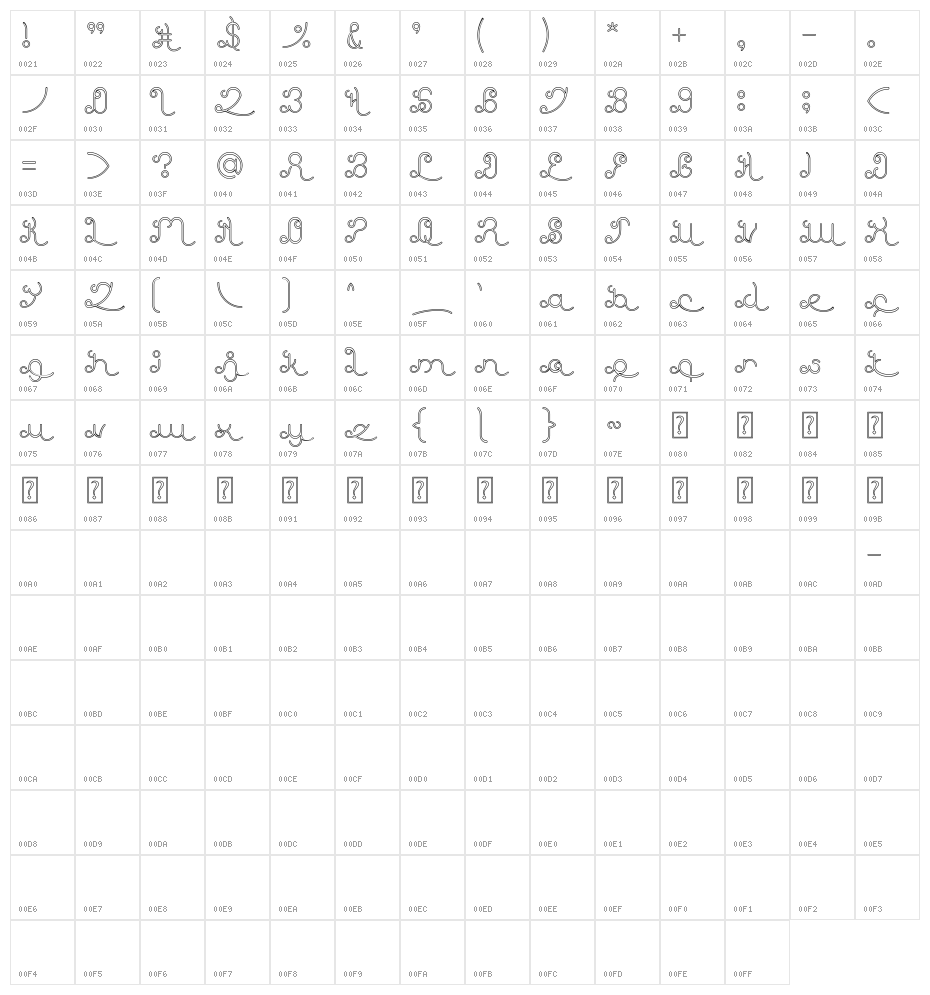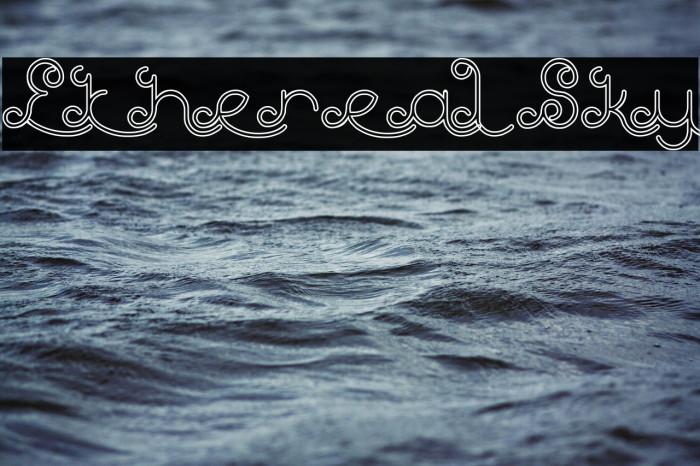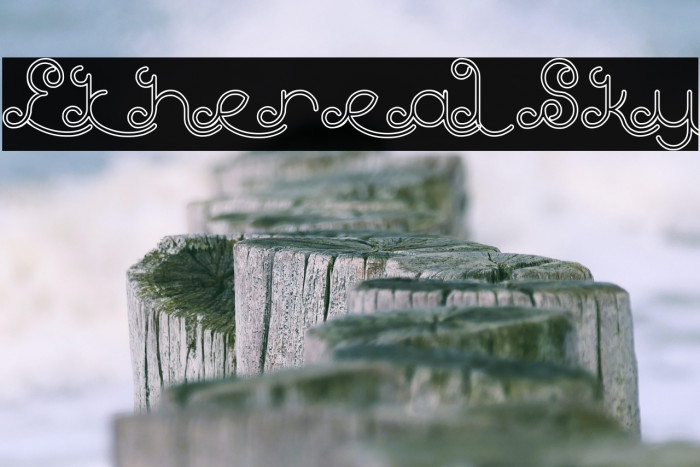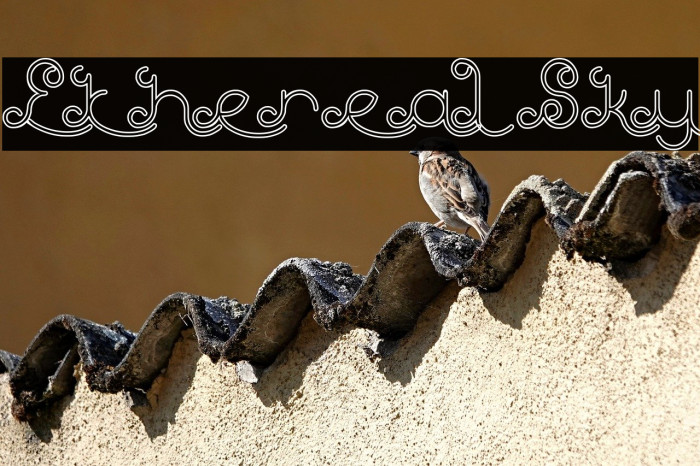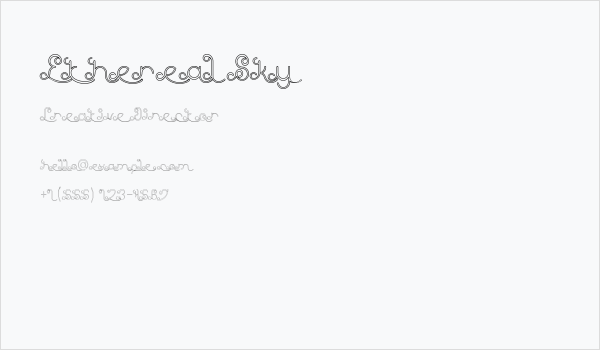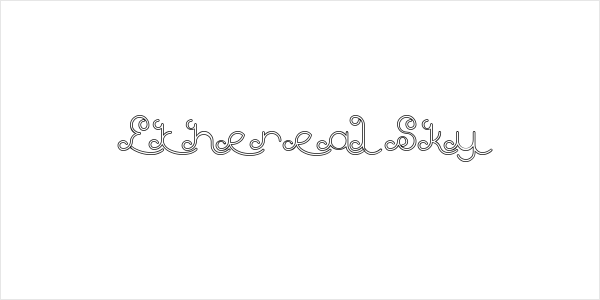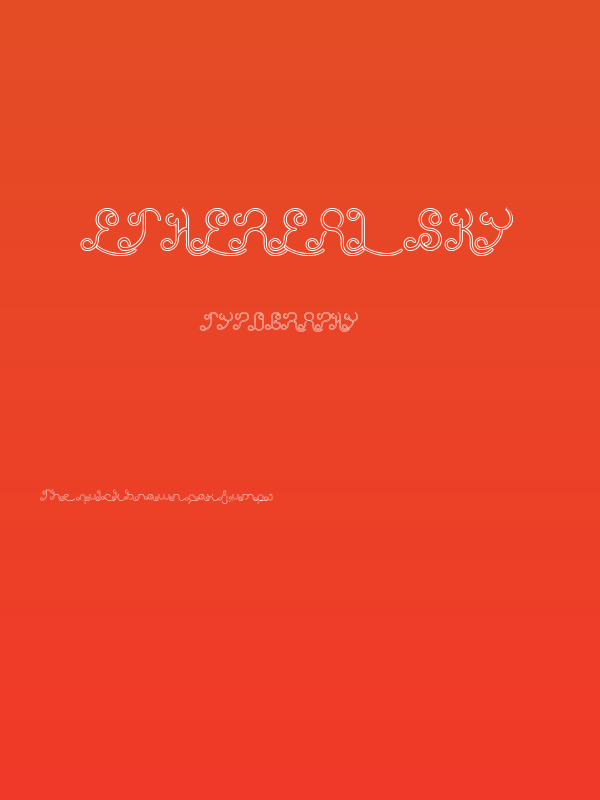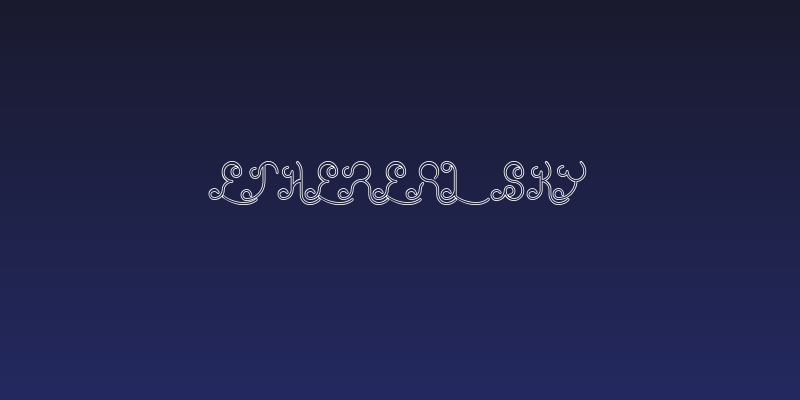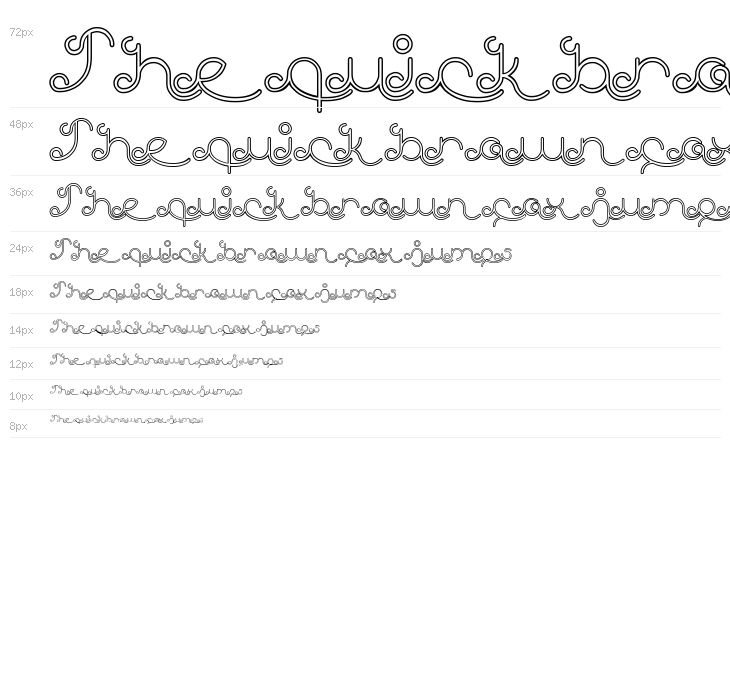
Ethereal Sky Font
Ethereal Sky Description
This font features a whimsical and flowing design, characterized by its continuous, looping strokes that create a sense of movement and elegance. Each letter is crafted with a unique, interconnected style, giving it a playful yet sophisticated appearance. The characters are outlined, adding a decorative touch that enhances their visual appeal. This font's intricate design makes it stand out, offering a blend of modern creativity and artistic flair. Its distinctive curves and loops are consistent across both uppercase and lowercase letters, as well as numbers and special characters, ensuring a cohesive look throughout.